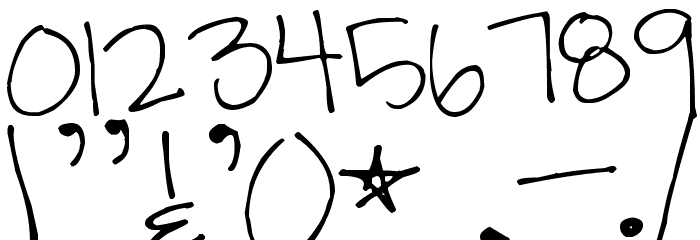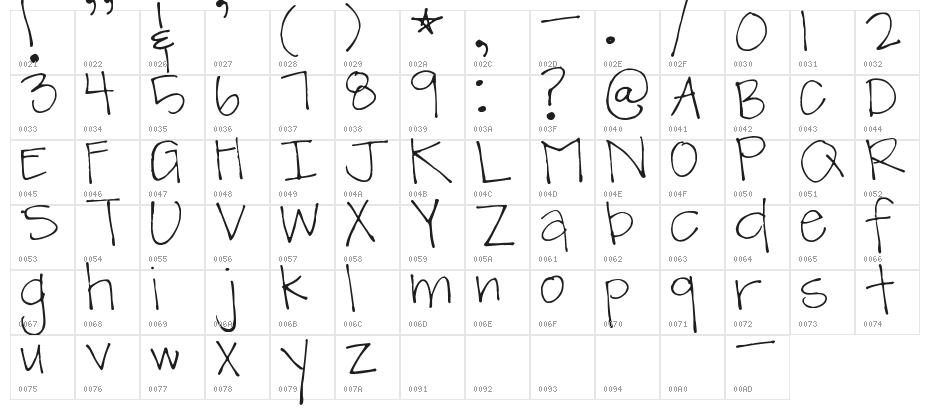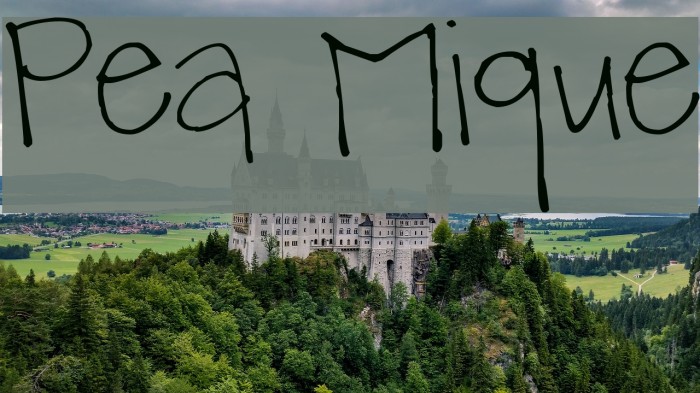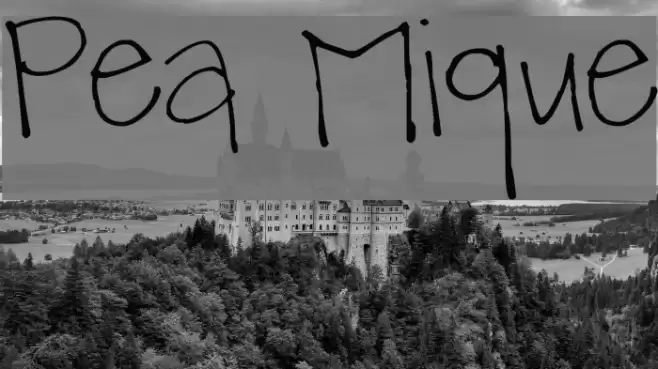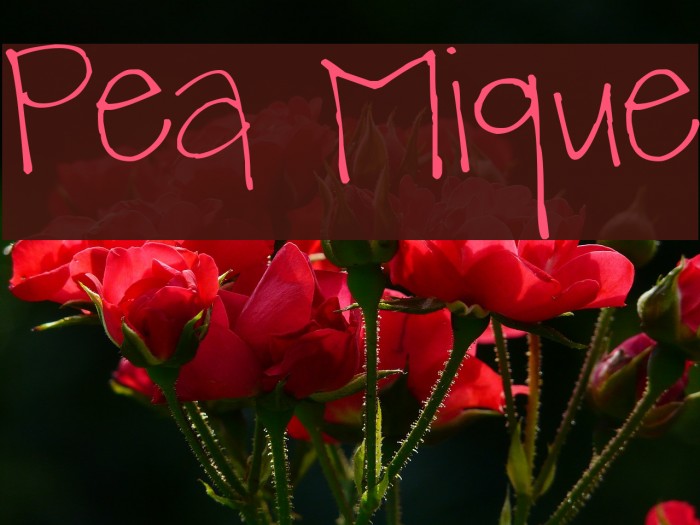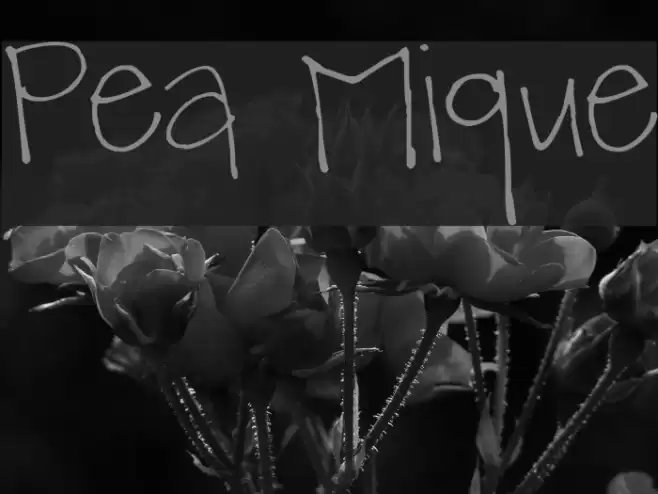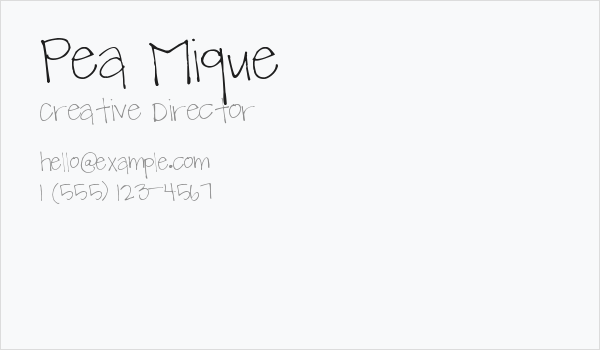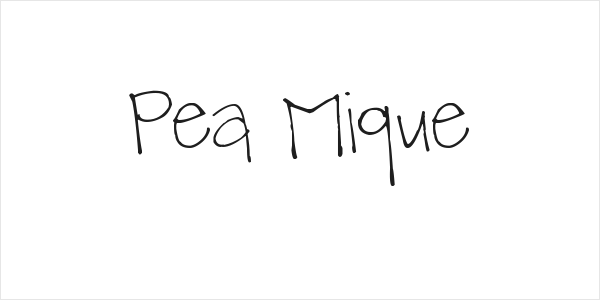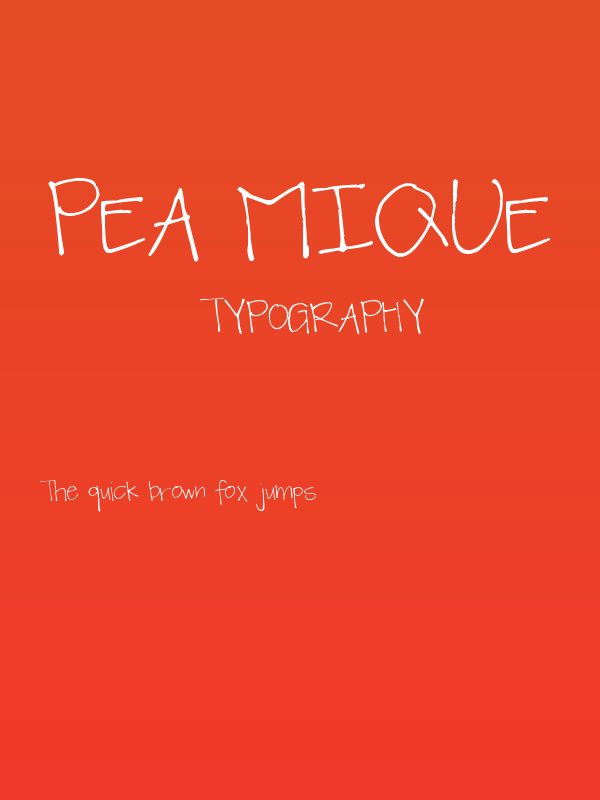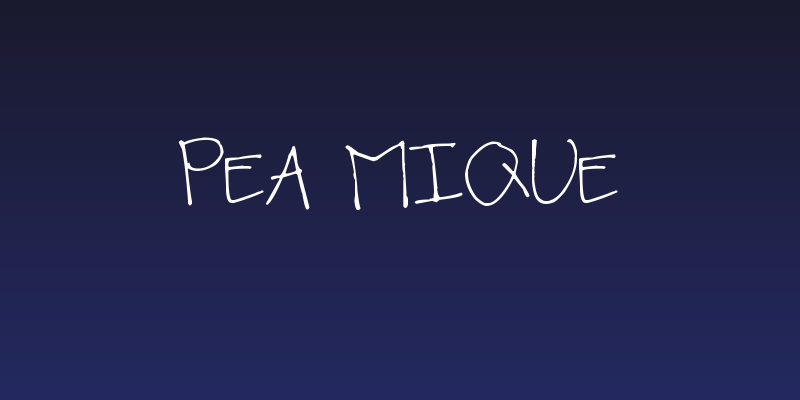
Pea Mique Font
Pea Mique Description
This playful and informal handwritten font exudes a casual and friendly vibe. The letters are unevenly sized and spaced, giving it a whimsical and spontaneous appearance. The strokes are thin and slightly irregular, mimicking the natural flow of handwriting. This font includes both uppercase and lowercase letters, numbers, and a variety of special characters, making it versatile for various uses. The overall style is relaxed and approachable, perfect for projects that require a personal touch.
| Use Case | Greeting cards, Personal notes, Informal branding |
| Proposed Projects | Ideal for greeting cards, personal notes, children's books, and informal branding. |